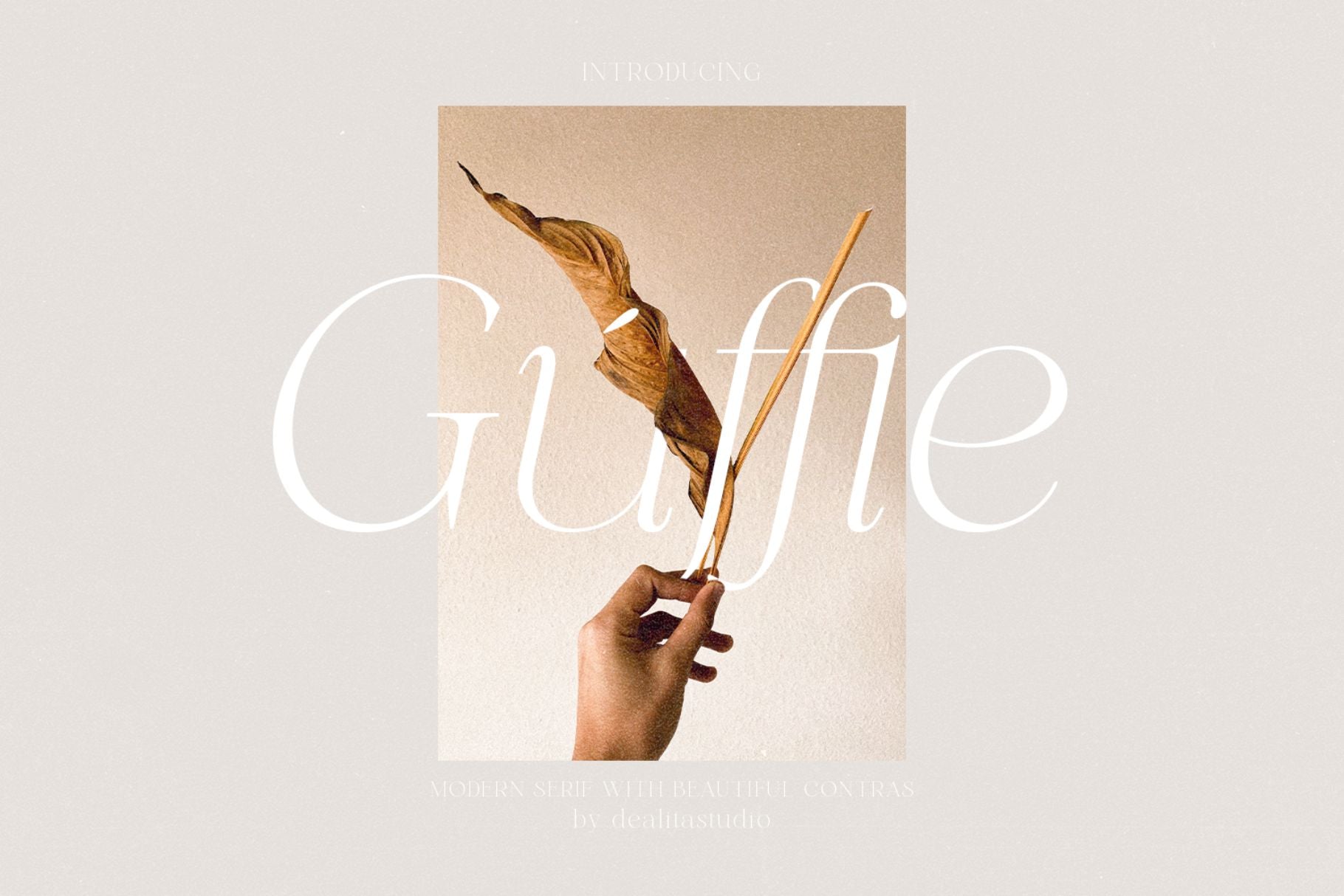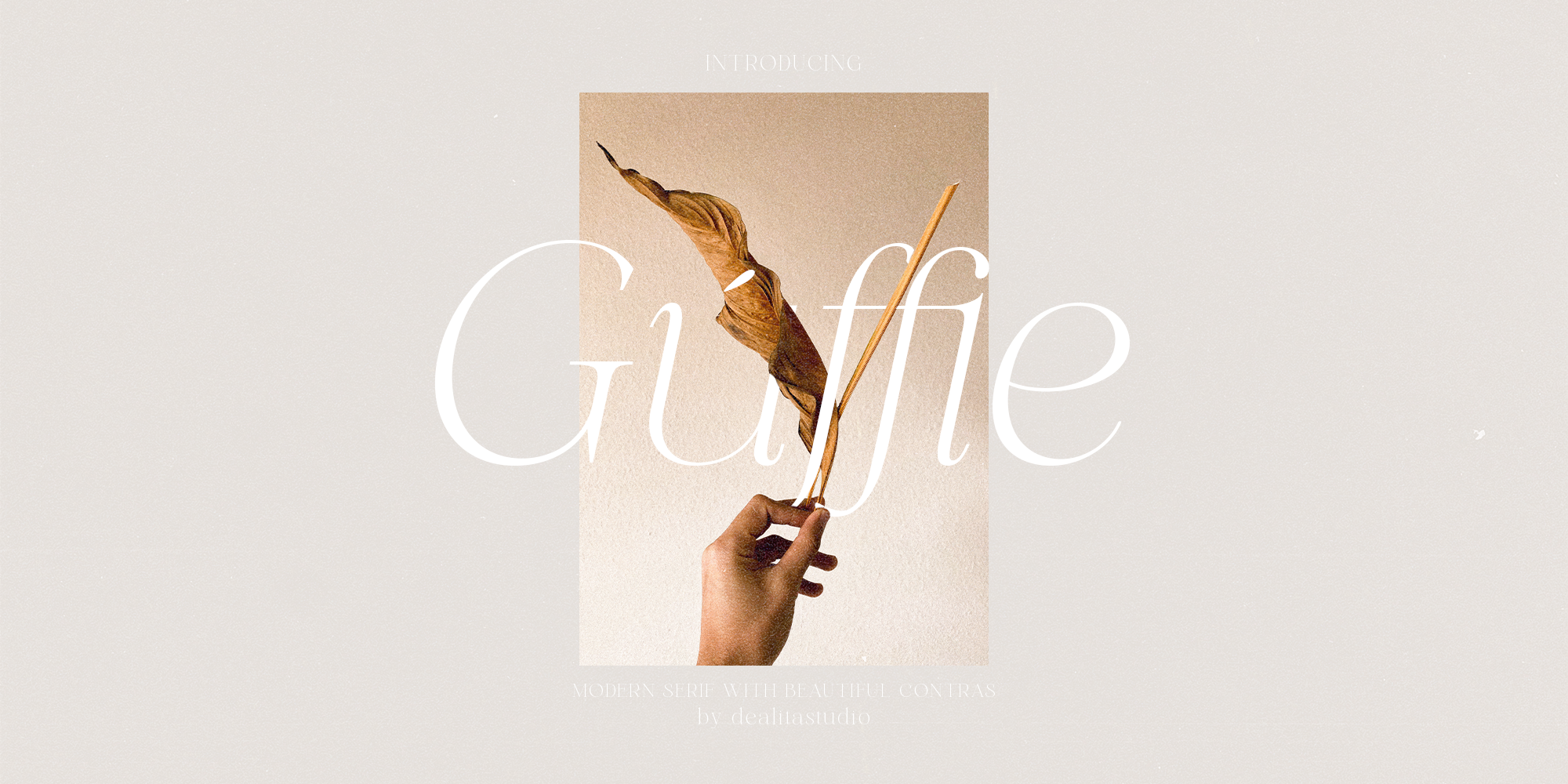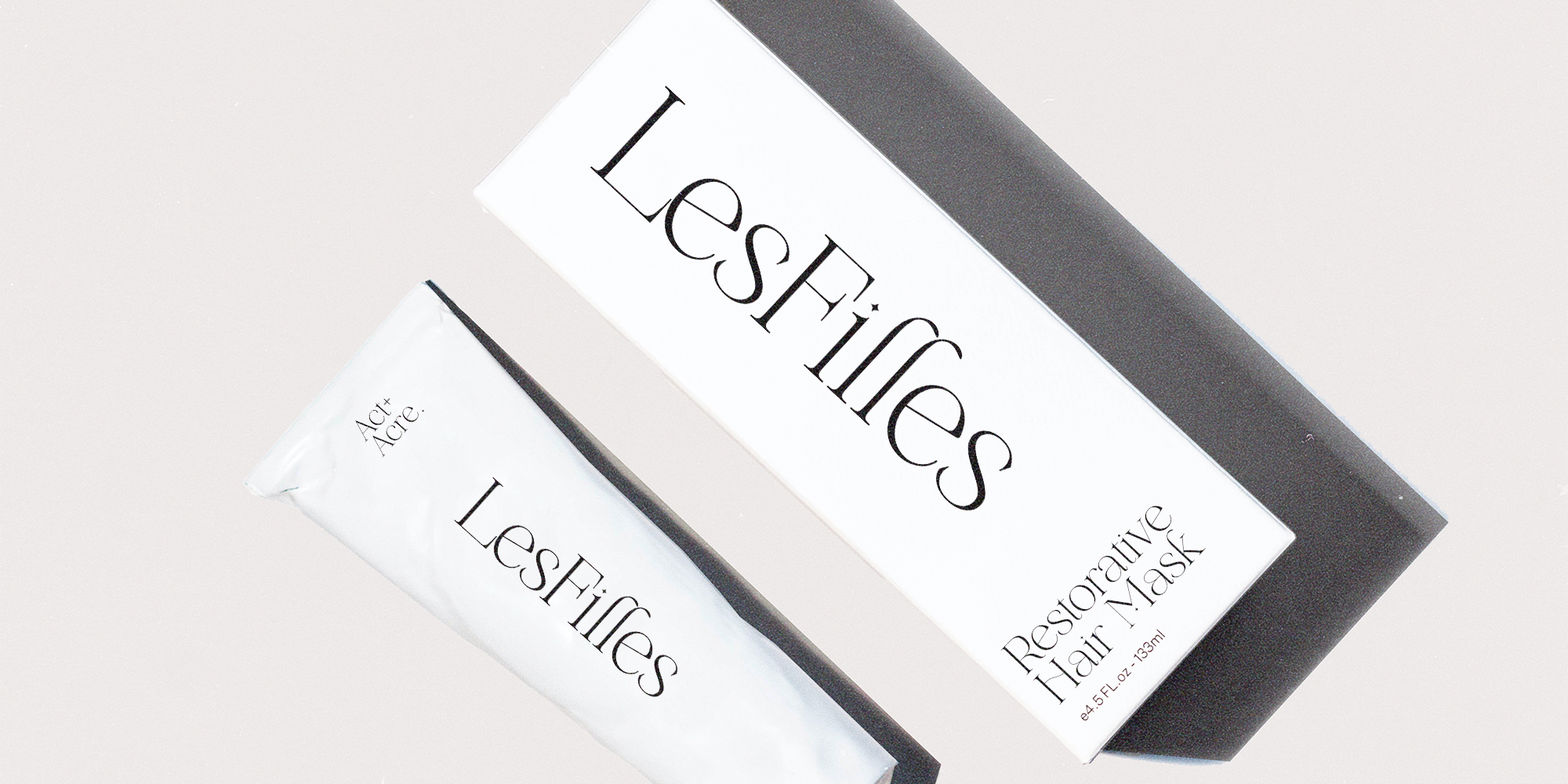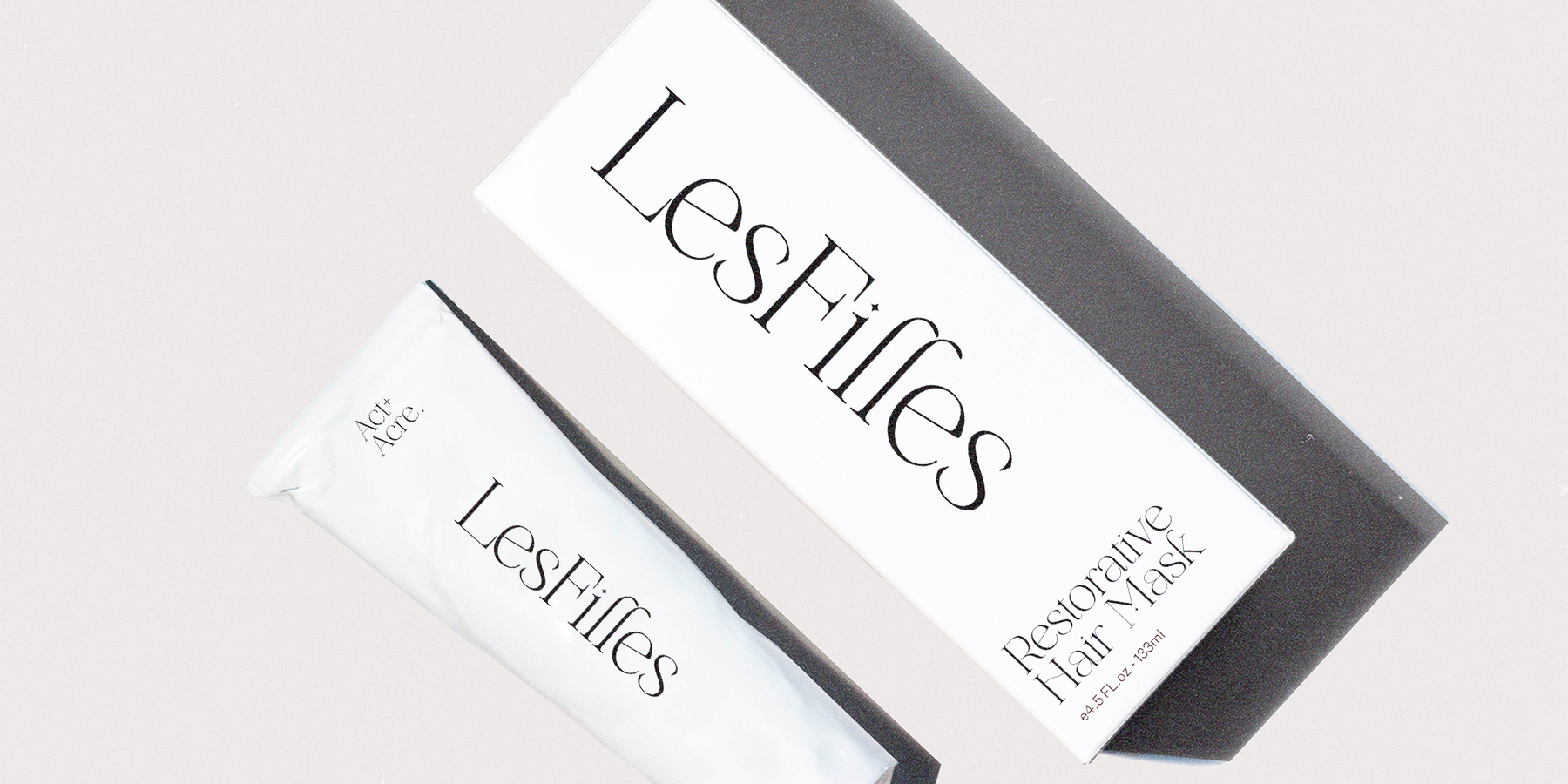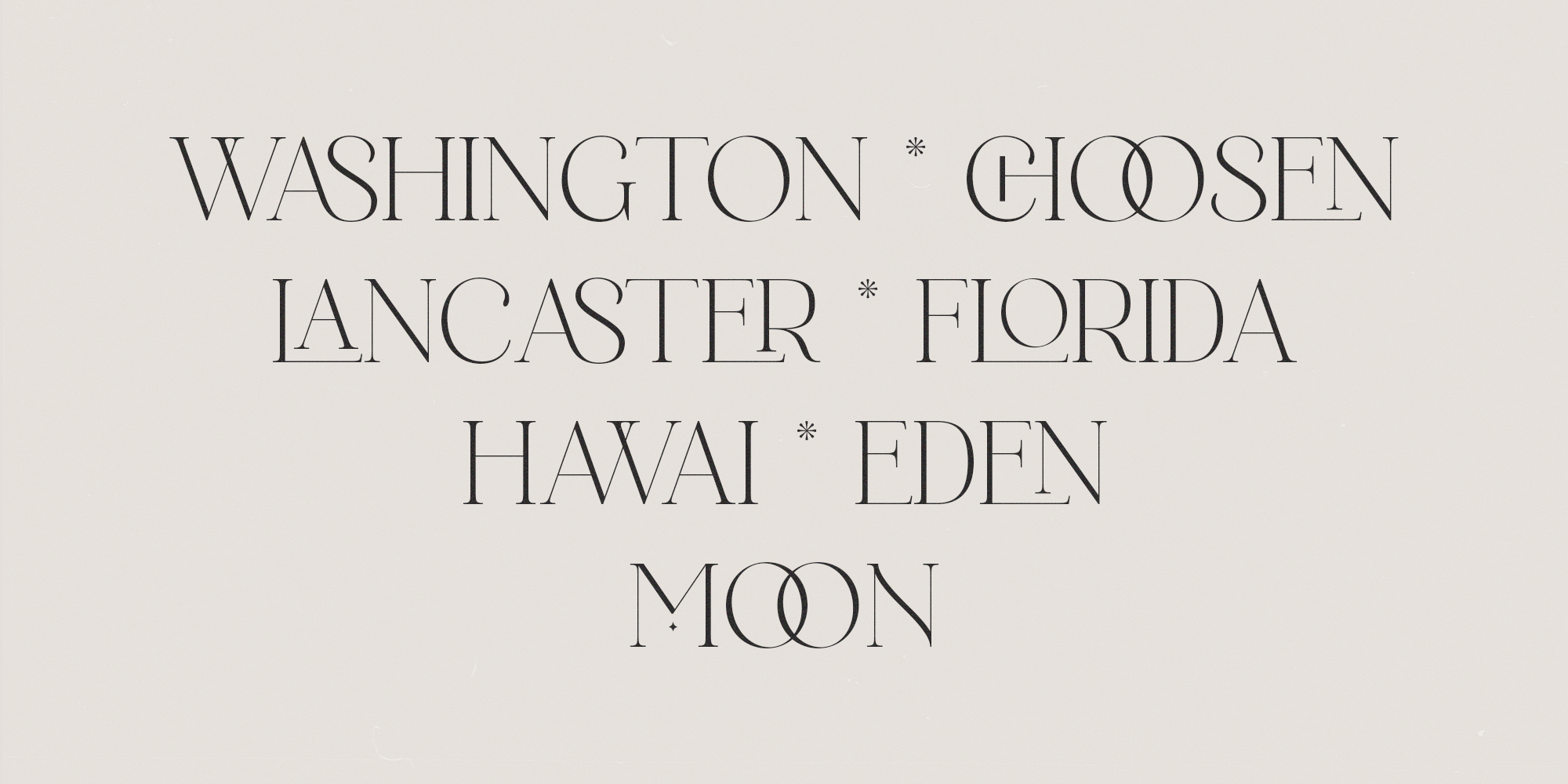
Guffie by Dealita Studio is a minimalist serif font designed for clarity, elegance, and modern simplicity. With its soft contrast, clean finish, and balanced proportions, Guffie is perfect for branding, packaging, editorial design, and digital projects that value a quiet, refined presence.
Ideal for lifestyle brands, wellness labels, and digital content, Guffie brings a sense of calm sophistication to your typography. Its neutral elegance makes it ideal for logos, headlines, website text, and print materials where readability meets style.
Guffie pairs beautifully with neutral sans-serifs or delicate scripts for a modern, curated look. Use it to create elegant designs for:
• Lifestyle and wellness branding • Minimalist packaging and product labels • Editorial layouts and digital content • Website typography and social media graphics • Professional presentations and print design
Whether you’re building a mindful brand or crafting a clean editorial identity, Guffie delivers the precision and elegance your project deserves.
Design with calm confidence — with Guffie, the minimalist serif font built for clarity and quiet beauty.